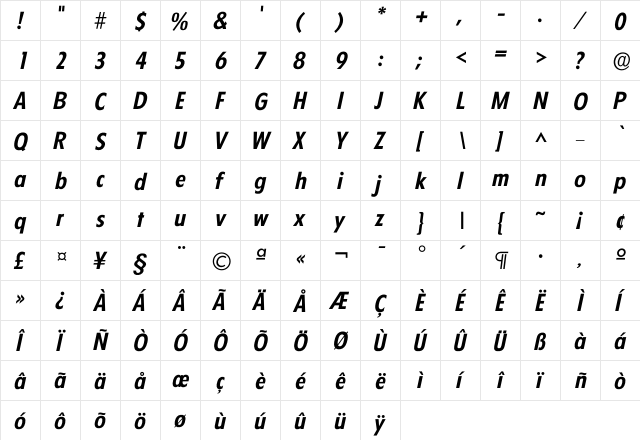
Iflorida DemiBold
Design Context for Iflorida Typeface
Iflorida takes a measured approach to typography — its balanced proportions and neutral character make it a reliable workhorse for both digital and print work. The heavy weight commands attention and anchors typographic hierarchies.